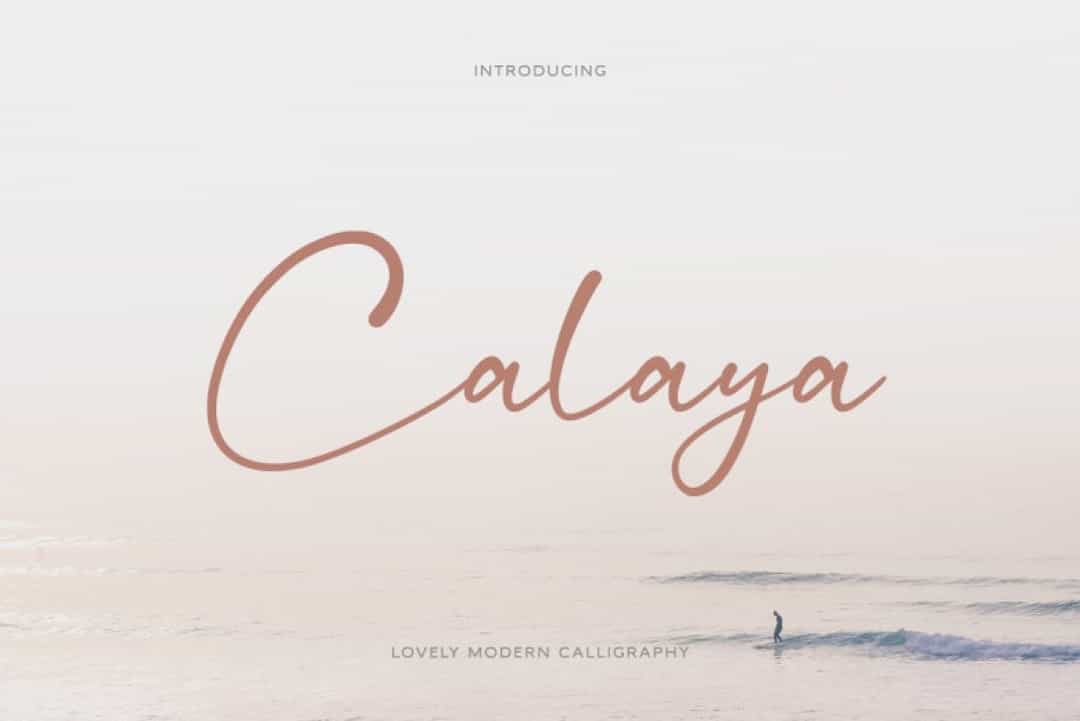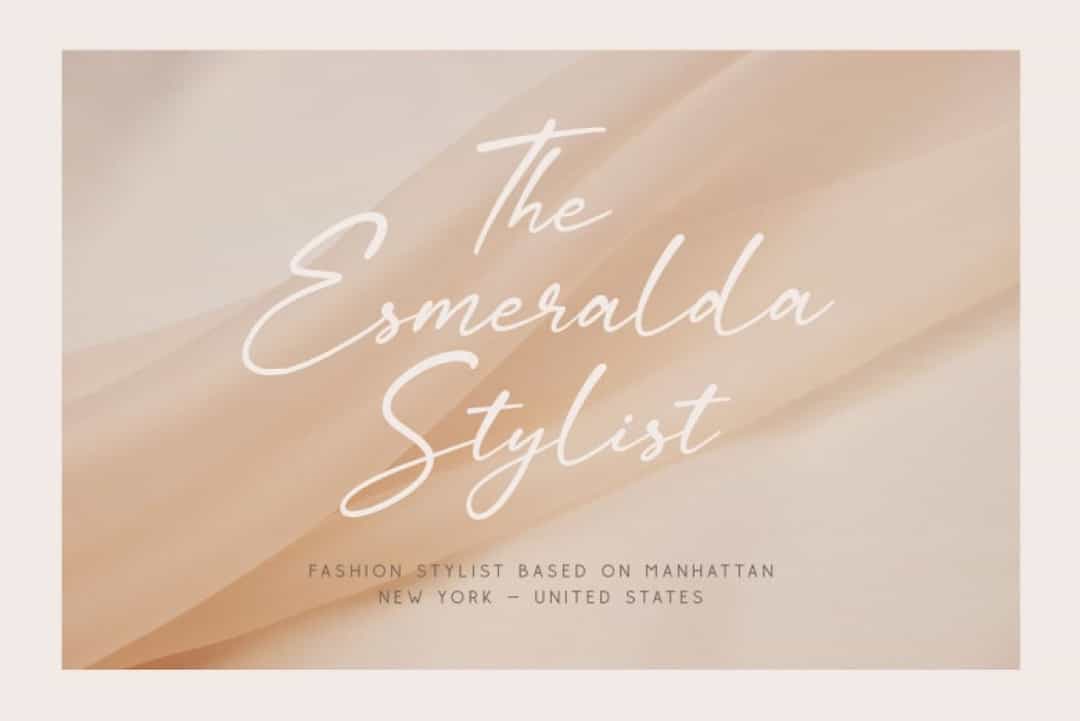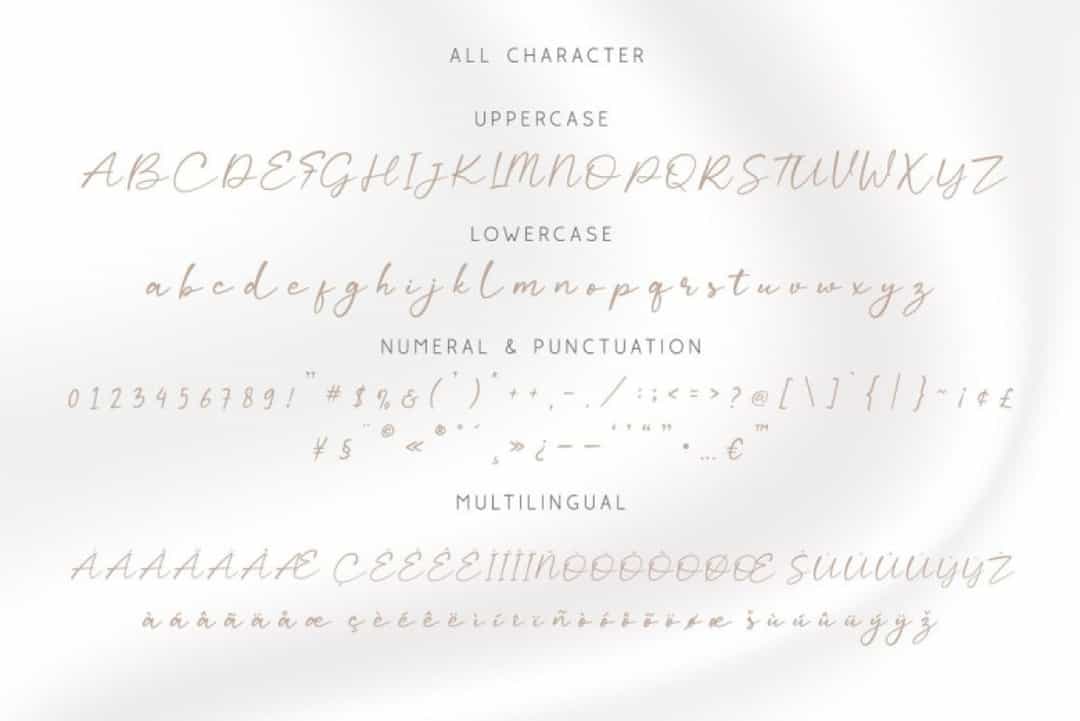
Calaya is an elegant contemporary handwritten script font modeled on actual handwriting, perfect for fashion brands, e-commerce companies and wedding boutiques as well as any business wanting to appear chic and sophisticated.